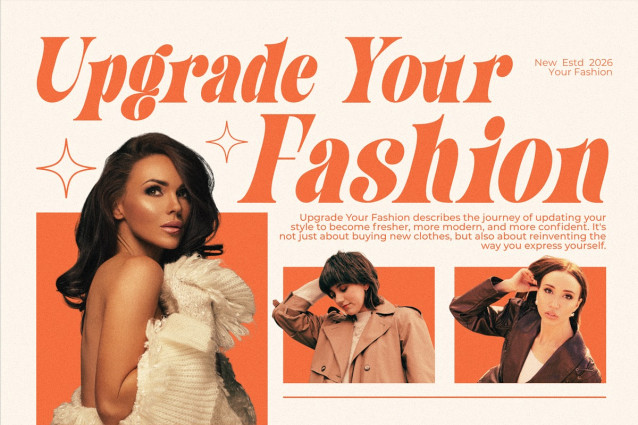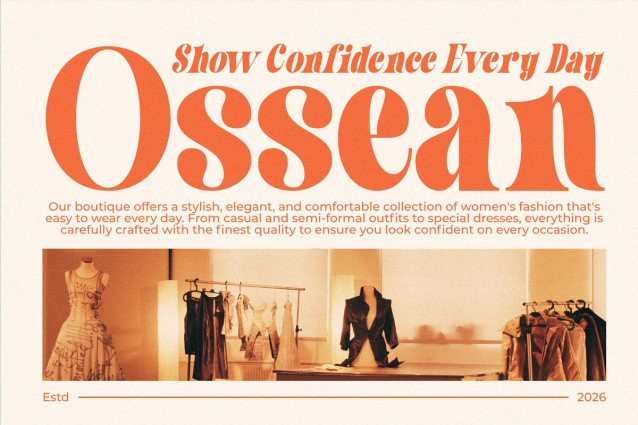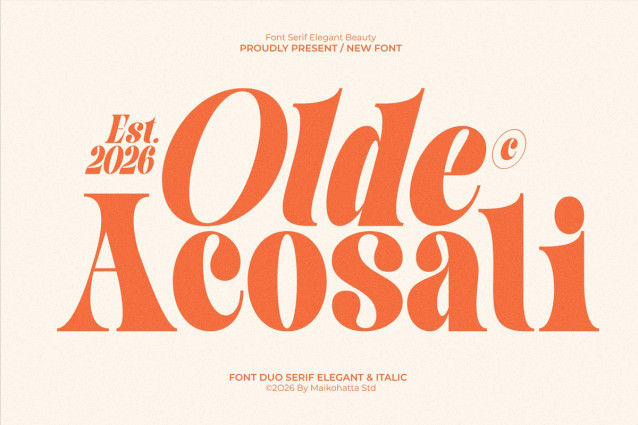
Olde Acosali Font
Olde Acosali Font is a refined and sophisticated serif duo font that blends timeless elegance with modern style. Designed with high contrast strokes, smooth curves, and stylish italic companions, this typeface brings a luxurious and graceful feel to any design.
This font duo includes a classic serif and a beautifully crafted italic version, making it perfect for creating stunning typography combinations. Whether you’re working on branding, editorial layouts, wedding invitations, or high-end packaging, Olde Acosai delivers a premium and professional look.
With its unique letterforms and artistic details, Olde Acosai stands out in both large headlines and delicate text compositions, giving your projects a distinctive and memorable touch.